The Designer’s Edit: 12 Must-Have Stylish Wedding Font Picks for 2026
Finding the perfect typography is the secret to creating a truly unforgettable event brand. In my studio, I look for typefaces that blend timeless grace with a modern edge. Today, I’m sharing 12 of my favorite Stylish Wedding Font picks to help you achieve a high-end, bespoke aesthetic.
1. Astrology Stylish Wedding Font
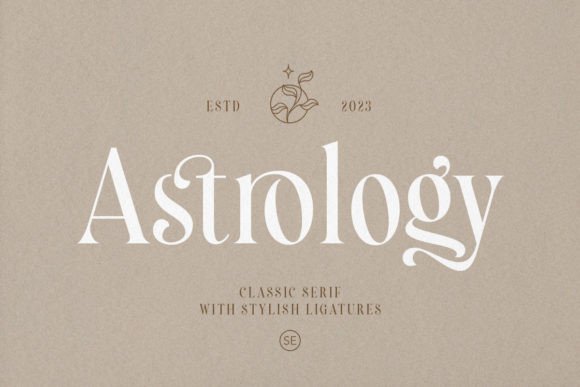
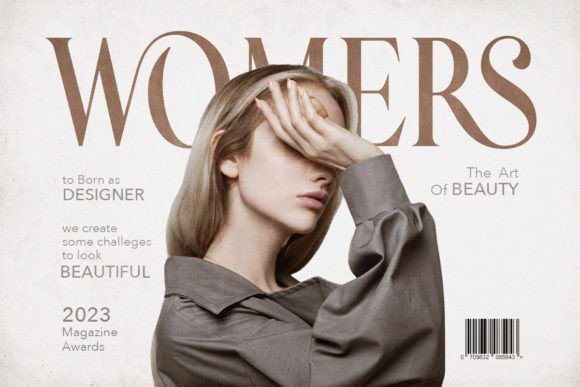
There is a distinct power in a beautifully crafted serif that instantly elevates a project from simple to breathtaking. When I am hunting for a truly Stylish Wedding Font that perfectly balances classic tradition with a modern, high-end editorial feel, Astrology is an absolute standout. As a designer who leans heavily into a clean, premium studio aesthetic, I am completely obsessed with its graceful, elongated letterforms and meticulously balanced strokes. It projects an undeniable sense of poise and elegance, making it an impeccable choice for sophisticated event invitations, bespoke branding, and upscale magazine layouts that demand a timeless, refined visual rhythm.
What truly sets a premium typeface apart from standard digital assets is the level of typographic finesse built right into the file, and this font delivers that flawlessly. It features a stunning array of meticulously designed ligatures that seamlessly connect characters, providing a beautifully polished and customized flow to your text. Having these specialized glyphs at your fingertips means you can effortlessly transform a basic headline or couple’s monogram into a bespoke, artful logotype. Combined with full multilingual support, this versatile tool makes it incredibly easy to craft a deeply personal and sophisticated identity, ensuring your final design always looks impeccably tailored and effortlessly chic.
2. Malira Stylish Wedding Font
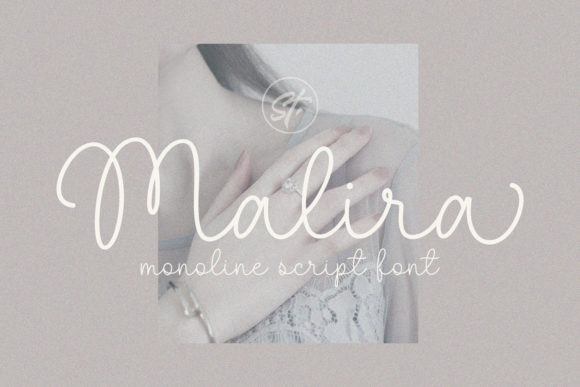
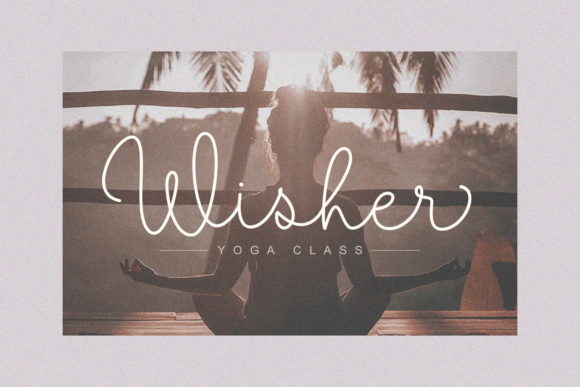
Finding a handwritten script that feels both authentically personal and highly refined can sometimes be a challenge, which is why Malira is such a stunning treasure to have in your typographic arsenal. If you are searching for a beautifully delicate Stylish Wedding Font, this lightweight monoline typeface is an absolute dream. As a designer who is constantly curating assets for a clean, premium studio aesthetic, I am completely captivated by its beautifully airy and effortless flow. It carries a deeply unique, human feel that manages to make a stunning visual impact without ever overwhelming the canvas, making it the perfect choice for minimalist save-the-dates or bespoke event branding.
Beyond its undeniably sweet visual charm, what makes a lightweight script like this so invaluable in my daily digital workspace is its incredible versatility. It acts as the perfect, elegant counterpoint when paired with strong, classic serifs or clean modern sans-serifs, giving your layouts that highly sought-after, balanced editorial look. Whether you are designing intimate thank-you cards or styling a chic bridal boutique, it easily injects an authentic, luxury spark into any design project you wish to create. It is a fantastic tool to ensure your typography always feels intimately handcrafted and flawlessly polished for your high-end clients.
3. Bright Stylish Wedding Font
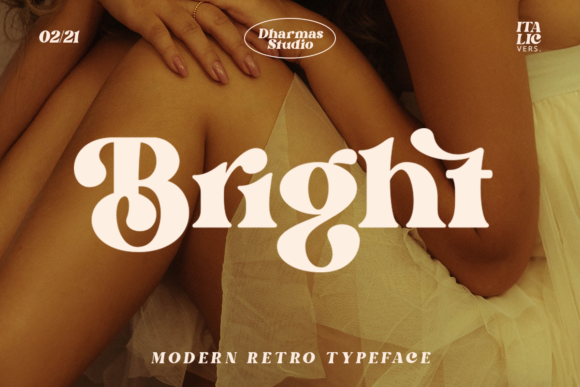
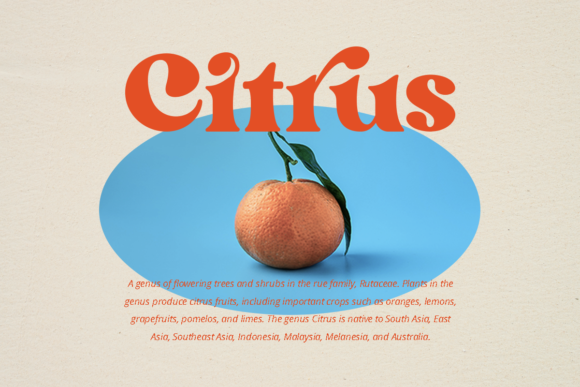
Retro-inspired design is having a major moment right now, and finding a typeface that captures that nostalgic flair without feeling dated is a true creative win. If you are aiming for a vibe that is simultaneously clear, bold, and incredibly fun, Bright is a brilliant Stylish Wedding Font to add to your collection. It strikes that perfect balance between 60s retro aesthetics and sharp, modern clarity. It is an ideal choice for a high-end “vintage-chic” wedding theme, bringing a playful yet sophisticated energy to bold headers and unique invitation layouts that demand attention.
Beyond its striking initial personality, what really makes this serif a dream for a professional studio workspace is the depth of its character set. The font is fully PUA encoded and comes packed with over 50 unique alternates and ligatures designed to give your project a completely bespoke vintage look. Having this level of variety at your fingertips means you can effortlessly customize your typography to ensure your designs feel hand-crafted rather than generic. It is a fantastic tool for creating one-of-a-kind monograms and editorial-style branding that feels both intentionally designed and effortlessly cool.
4. Abigail Stylish Wedding Font
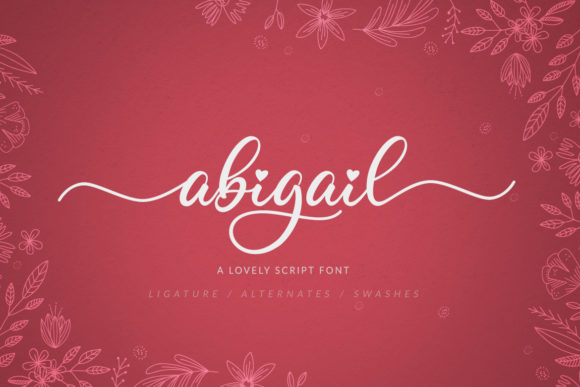
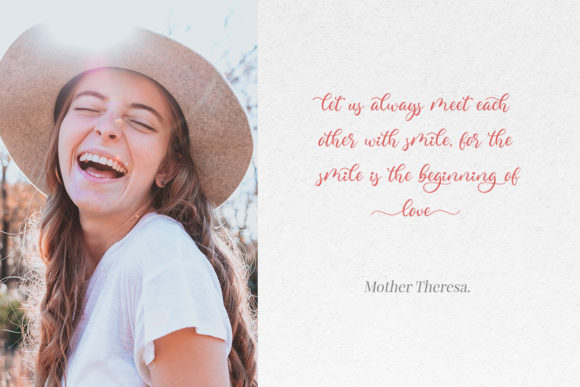
There is a unique kind of charm that only a truly heartfelt handwritten script can bring to a creative project. If you are looking for a Stylish Wedding Font that leans into pure romance and whimsy, Abigail is a standout choice. I am particularly fond of its elegant cursive flow and the adorable heart ornaments integrated into the letterforms. It’s the perfect asset for couples who want their invitations to feel intimately personal and beautifully tailored, adding a touch of sweetness that feels both modern and timeless.
What really makes this typeface a staple in a professional toolkit is its incredible versatility across different design mediums. I find it works brilliantly not just for gorgeous wedding invitations, but also for elevated stationery art and eye-catching social media branding. Whether you are crafting a heartfelt quote for a luxury bridal feed or designing a bespoke logo, the flowing ligatures and decorative swashes provide endless creative potential. It’s an effortless way to take your designs to a more polished, artistic level while maintaining that authentic, “handcrafted” feel.
5. Almond Script Stylish Wedding Font
Sometimes the most impactful statement is the one made with the most delicate of lines, and that is exactly where Almond Script shines. If you are on the hunt for a Stylish Wedding Font that embodies pure, ravishing grace, this thin-lettered script is an absolute must-have. As a designer, I am constantly looking for typefaces that can carry a sense of weightless elegance on a blank canvas, and the flowing, ethereal quality of this font makes it perfect for high-end invitation suites, sophisticated event branding, or any project that needs a touch of modern romance.
Conclusion